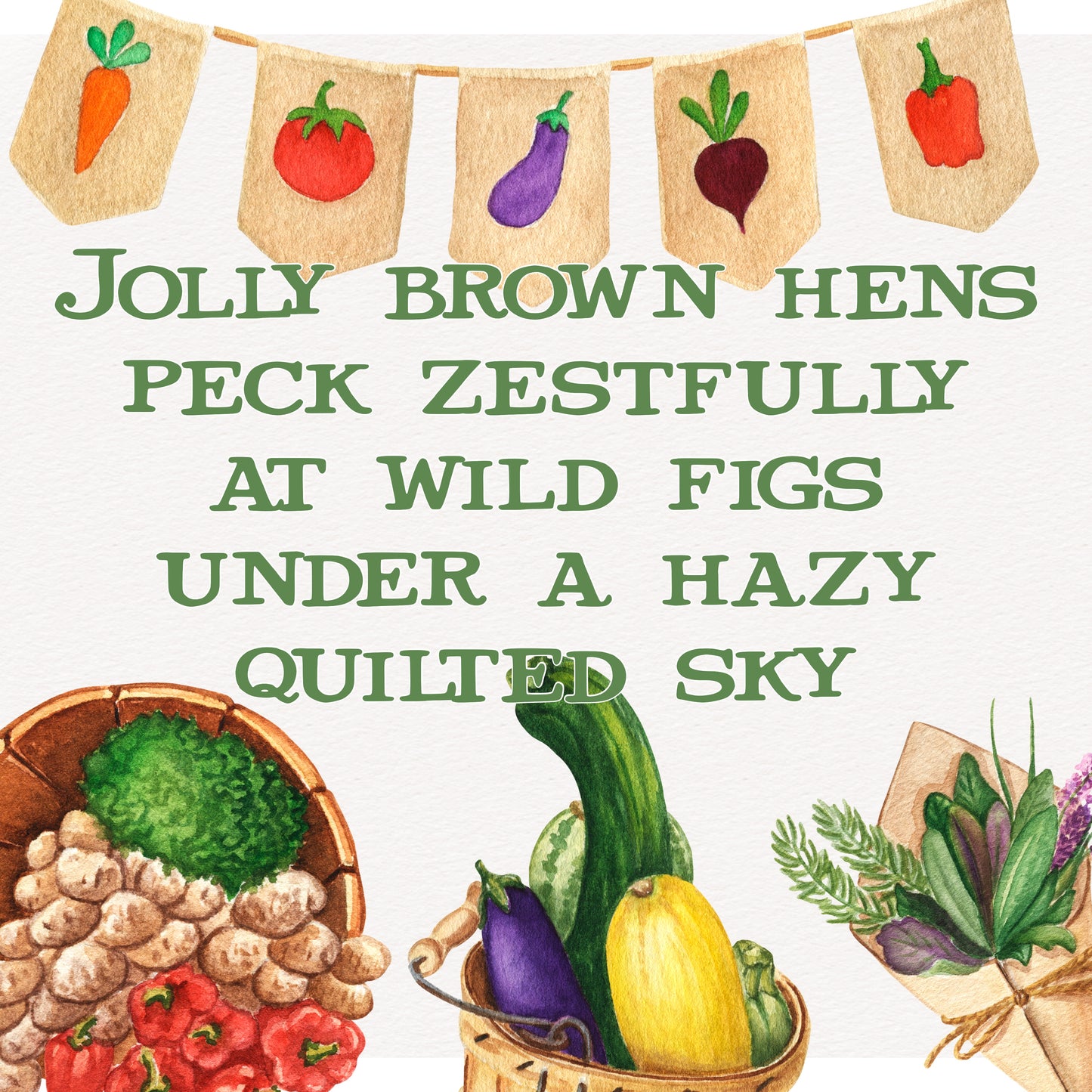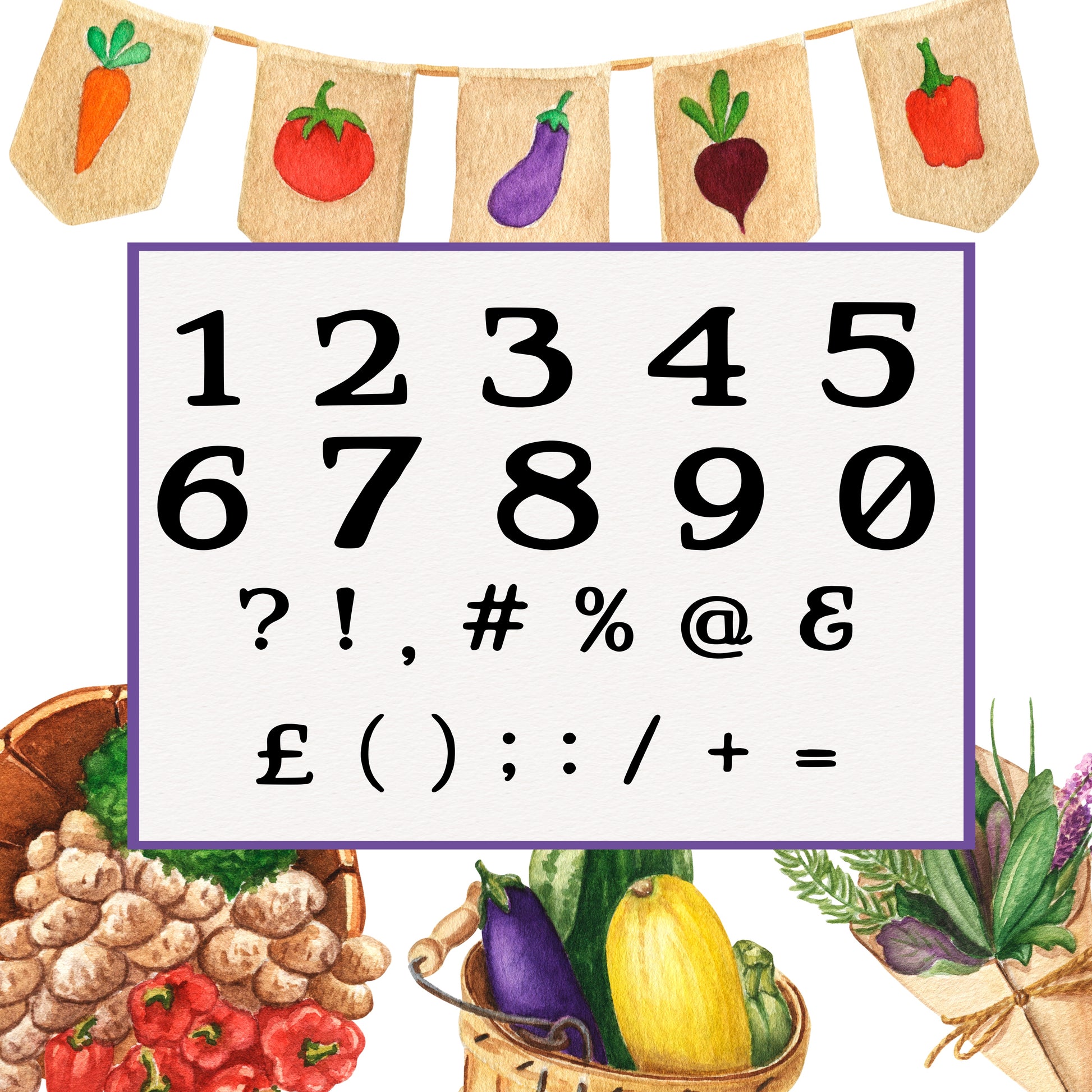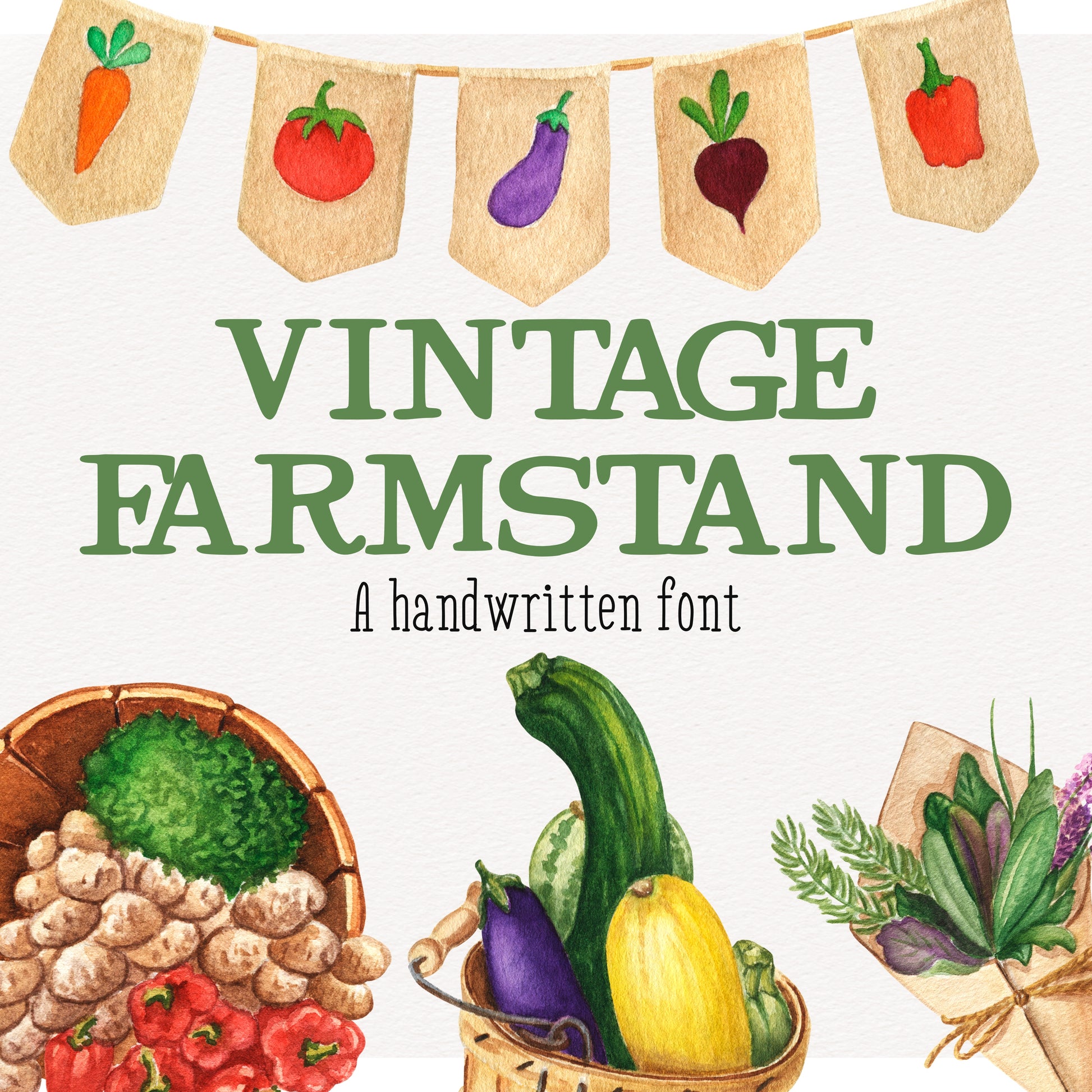
Vintage Farmstand Handwritten Font
This charming handwritten font comes in OTF format and is ready to sprinkle a little personality into your designs! Perfect for shirts, mugs, signs, invitations, social media posts, and pretty much anything that needs that “handmade” vibe.